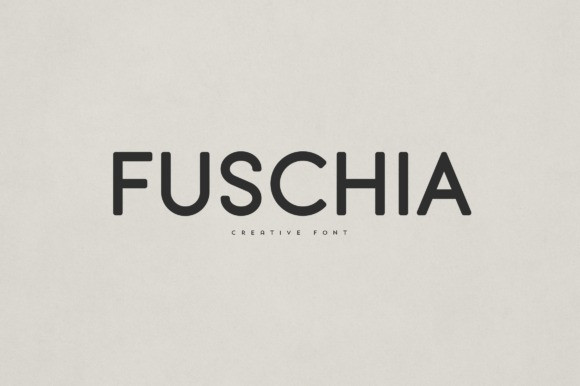
Fuschia Font
Fuschia Font is an elegant and versatile sans serif font that will make your typography truly unique! It will enchant every logo, branding, headline, or plain text!